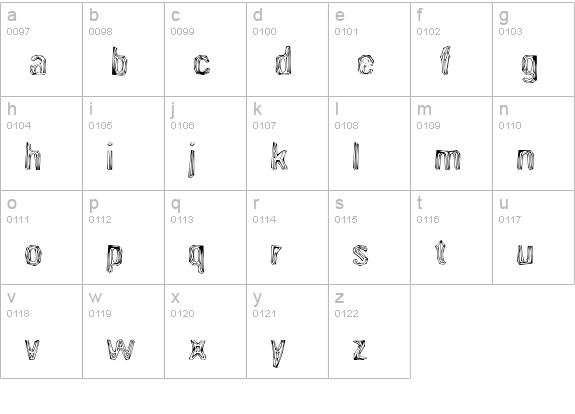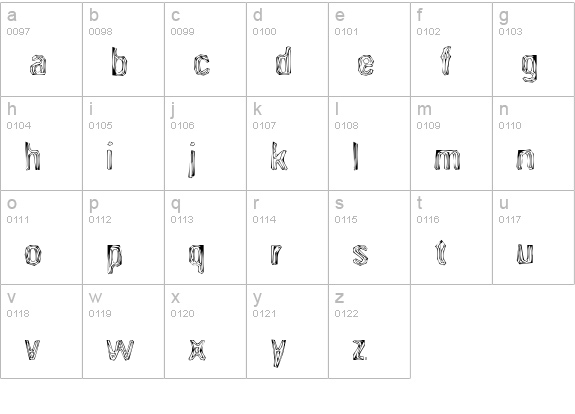
Angioma AOE Font Details
Introducing Angioma AOE font, a stunning display typeface perfect for adding a touch of elegance and sophistication to your designs. With its intricate details and unique letterforms, Angioma AOE exudes a sense of creativity and charm that will captivate your audience. This versatile font is ideal for a wide range of design projects, from branding and packaging to invitations and social media graphics. Its bold yet graceful style makes it a standout choice for any project that requires a touch of sophistication. What's even better is that Angioma AOE font is completely free to download at FontsMarket.com. So go ahead and elevate your designs with this exquisite typeface today!